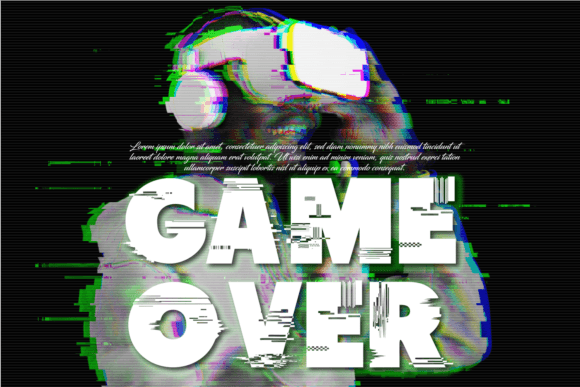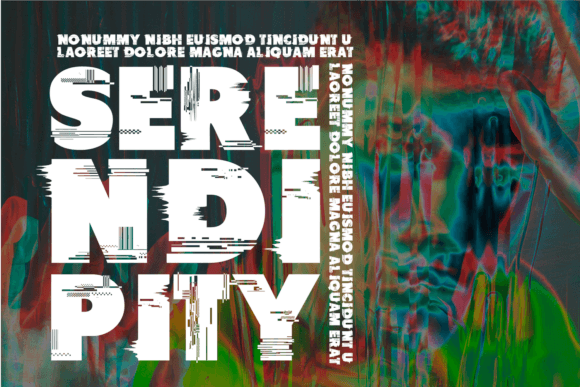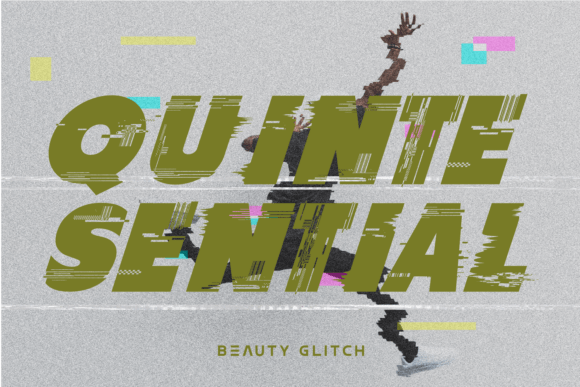
Beauty Glitch Font is a sans serif type of bold and italic type. It’s in the form of horizontal pieces like glitch effect. Each sans serif letter has been individually distorted in stages, using detailed high resolution effects. Inspired by science fiction movies and games, Fault is a beautiful, highly detailed display font that will take the hassle out of creating a glitch text effect. This font it’s perfect for , poster, logo, magazine, cover, banner, tshirt and headers, or even large-scale artwork.
Beauty Glitch Font